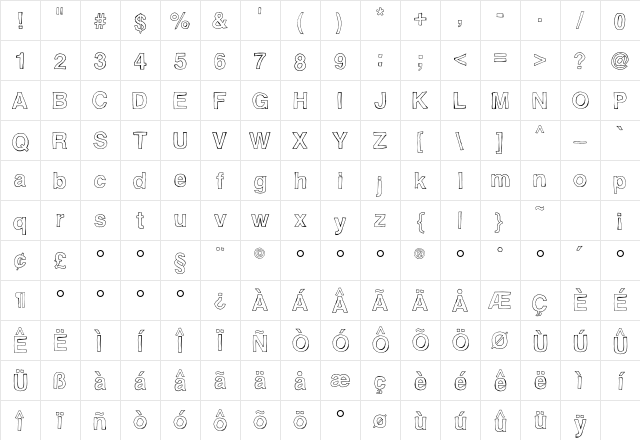
Flyerfonts DisEngage Free Font
Flyerfonts DisEngage
Style: DisEngage
Design Context for Flyerfonts
Flyerfonts is a composed and adaptable typeface that performs quietly and consistently across a wide range of design contexts.